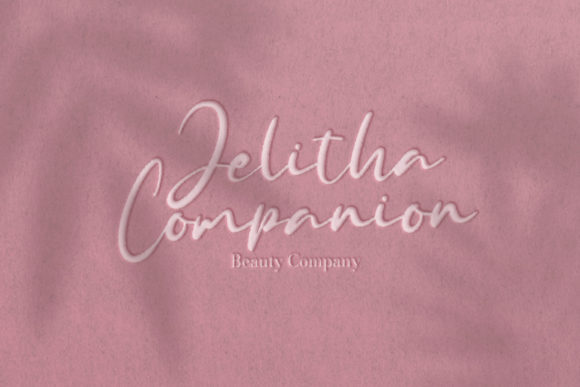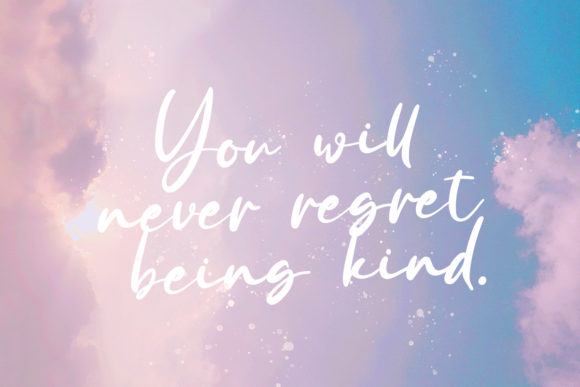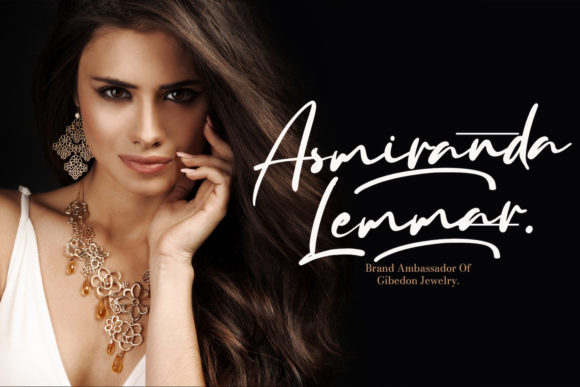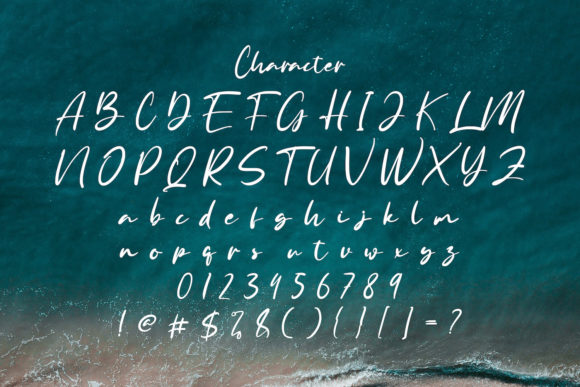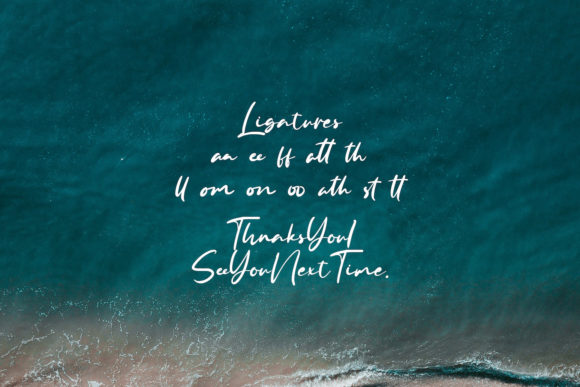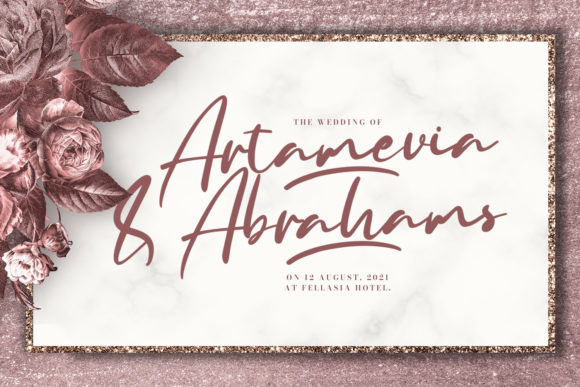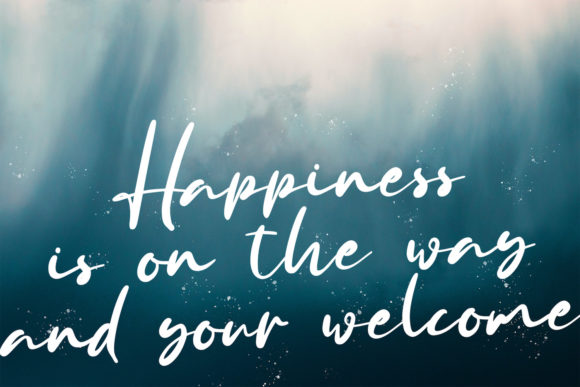
Anyer Beach Font
About Anyer Beach Font
Anyer Beach is a stylish and incredibly elegant script font. It looks stunning on wedding invitations, thank you cards, quotes, greeting cards, logos, business cards and every other design which needs a handwritten touch.